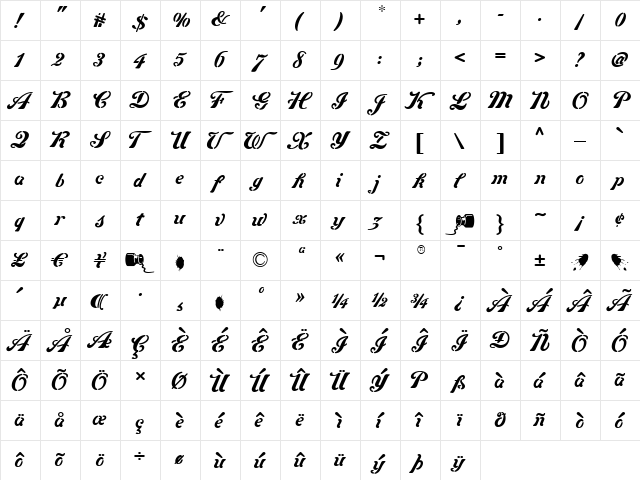
Graphic Stylin NF Regular
Design Context for Graphic Stylin NF Typeface
Graphic Stylin NF is a composed and adaptable typeface that performs quietly and consistently across a wide range of design contexts.